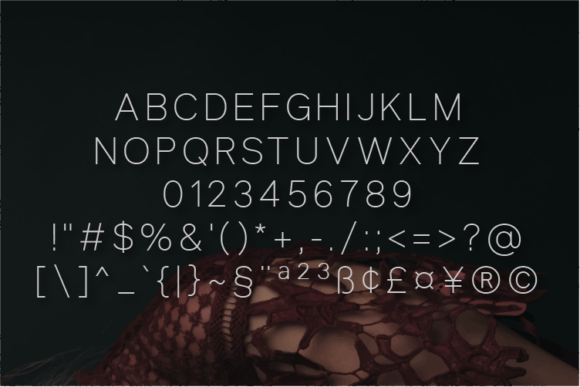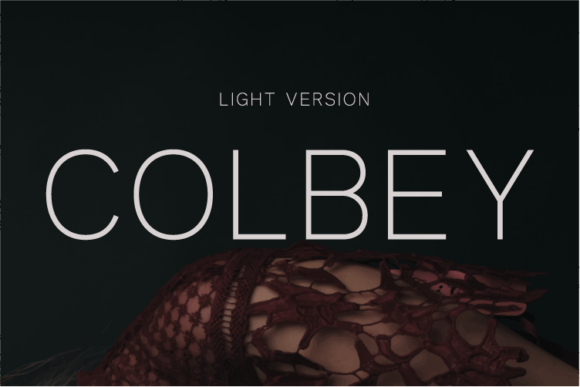
Introducing Colbey Light Font: Elevate Your Design with Elegance
In the world of typography, fonts play a crucial role in conveying messages, expressing emotions, and creating lasting impressions. For designers, crafters, and anyone looking to add a touch of sophistication to their projects, Colbey Light Font is an excellent choice. This elegant contemporary sans serif font is designed to bring a clean, stylized geometry, and harmonious appearance to both texts and headlines.
What Makes Colbey Light Font Stand Out?
Colbey Light Font boasts soft edges that give it a unique, approachable feel, setting it apart from more traditional sans serif fonts. Its design is centered around creating a balance between modernity and readability, making it perfect for a wide range of applications. Whether you’re working on branding, logos, web design, or any other project that requires a touch of elegance, Colbey Light is sure to impress.
Key Features of Colbey Light Font
- Elegant and Contemporary Design: Colbey Light Font features a sleek, modern design that is both stylish and versatile.
- Soft Edges: The soft edges of this font give it a friendly and approachable look, making it suitable for a variety of design projects.
- Clean and Stylized Geometry: The font’s geometry is carefully crafted to ensure clarity and aesthetic appeal.
- Harmonious Appearance: Colbey Light ensures a harmonious look across different texts and headlines, making it ideal for comprehensive design projects.
- Versatile: This font is perfect for branding, logos, web design, and a multitude of other applications.
Why Choose Colbey Light Font?
Choosing the right font for your project can be a daunting task, given the numerous options available. However, Colbey Light Font offers several advantages that make it a preferred choice among designers:
- Enhances Readability: Its clean design and soft edges make it easy to read, even in smaller sizes.
- Versatile Application: Suitable for both digital and print media, Colbey Light adapts well to various design needs.
- Unique Aesthetic: The font’s distinctive look can help your designs stand out in a crowded marketplace.
- Easy to Pair: Colbey Light can be easily paired with other fonts to create stunning contrasts and visual hierarchies.
Using Colbey Light Font in Your Projects
Integrating Colbey Light Font into your projects is straightforward. Here are a few tips on how to make the most of this elegant font:
- Branding: Use Colbey Light for your brand’s logo, packaging, and marketing materials to create a cohesive and sophisticated look.
- Web Design: Enhance your website’s typography with Colbey Light, making it more engaging and user-friendly.
- Social Media Graphics: Add a touch of elegance to your social media posts and stories with this versatile font.
- Print Materials: From brochures to business cards, Colbey Light can elevate the quality of your print designs.
Colbey Light Font is a versatile and elegant sans serif font that can add a touch of sophistication to any design project. Its soft edges, clean geometry, and harmonious appearance make it an excellent choice for designers and crafters looking to create visually appealing and effective designs. Whether you’re working on branding, web design, or print materials, Colbey Light is sure to meet your typography needs and elevate your designs to the next level.